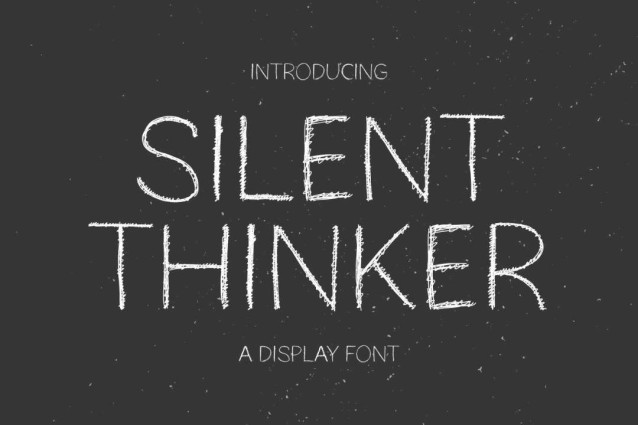
Silent Thinker Font
Silent Thinker Font is a chunky, comic, and cartoon display font. With its neat and joyful personality, this font will enhance any project you wish to create!